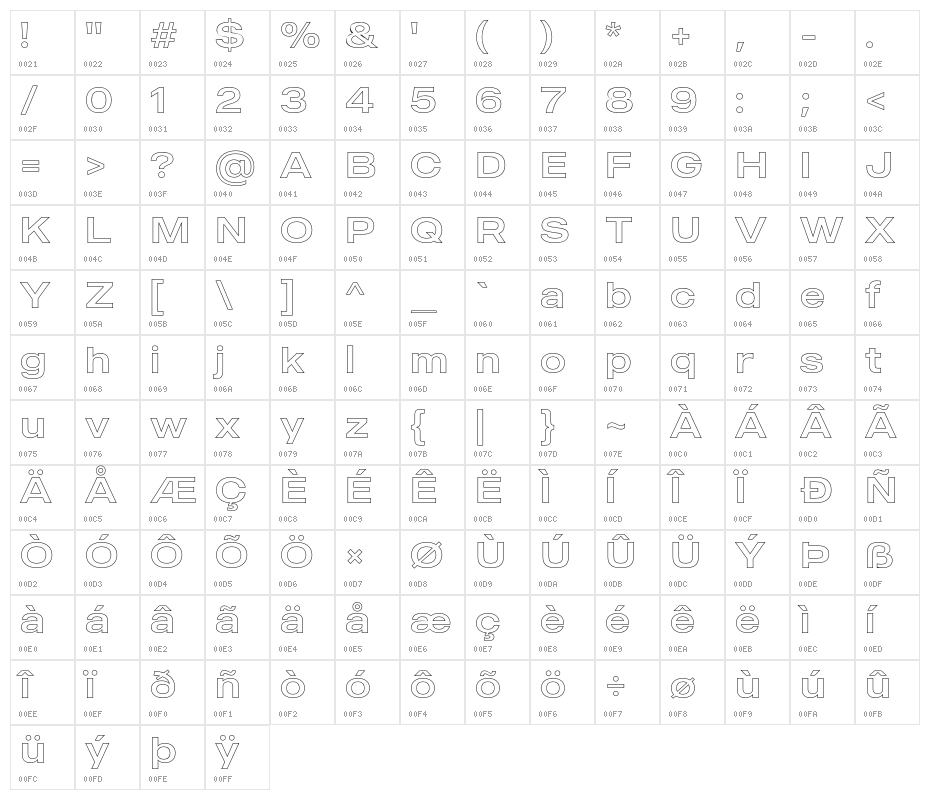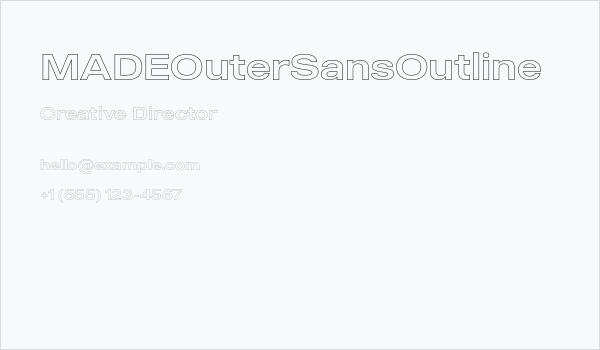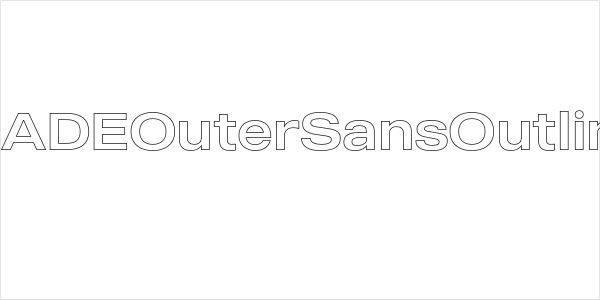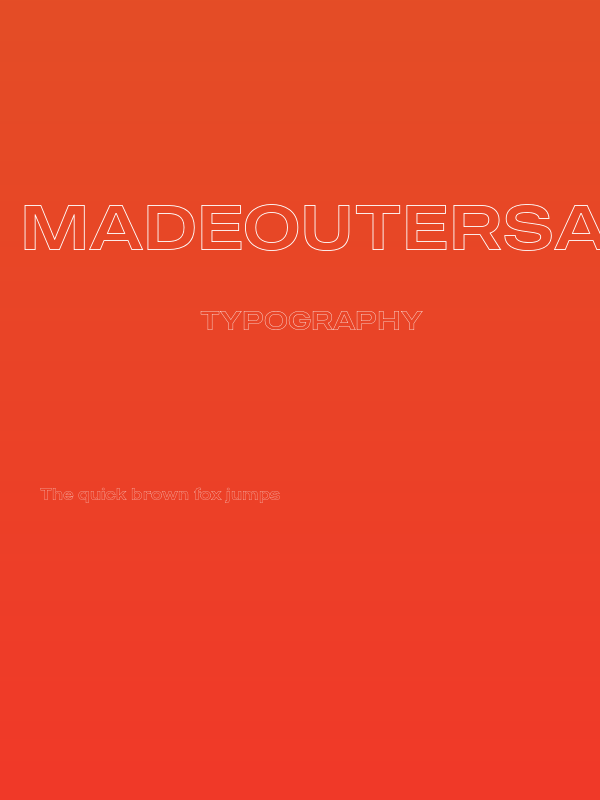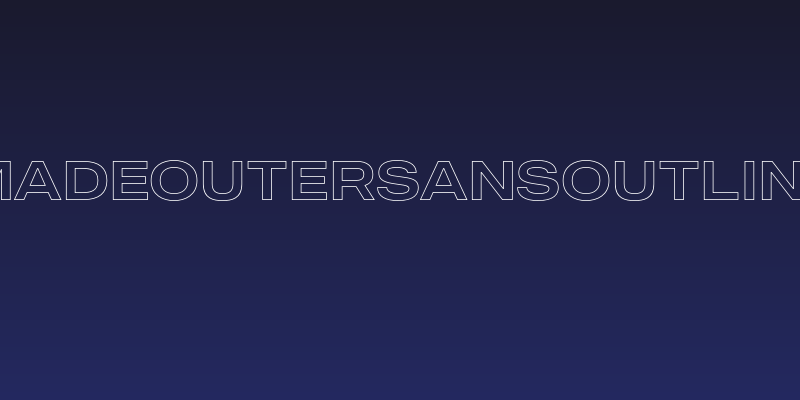
MADEOuterSansOutline Font
MADEOuterSansOutline Description
This font features a clean, modern outline style with a geometric sans-serif design. Each character is defined by a consistent stroke width, creating a harmonious and balanced appearance. The uppercase and lowercase letters maintain a uniform height, contributing to a cohesive look. The numerals and special characters are crafted with the same precision, ensuring readability and versatility. The open, airy design of the letters makes it ideal for projects that require a contemporary and minimalist aesthetic.
| Proposed Projects | Ideal for branding, logos, headlines, posters, and digital media where a modern and sleek look is desired. |